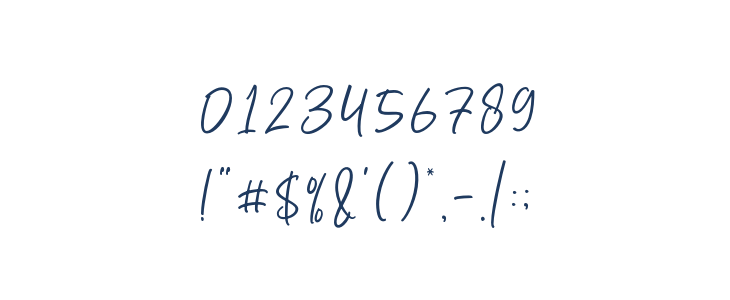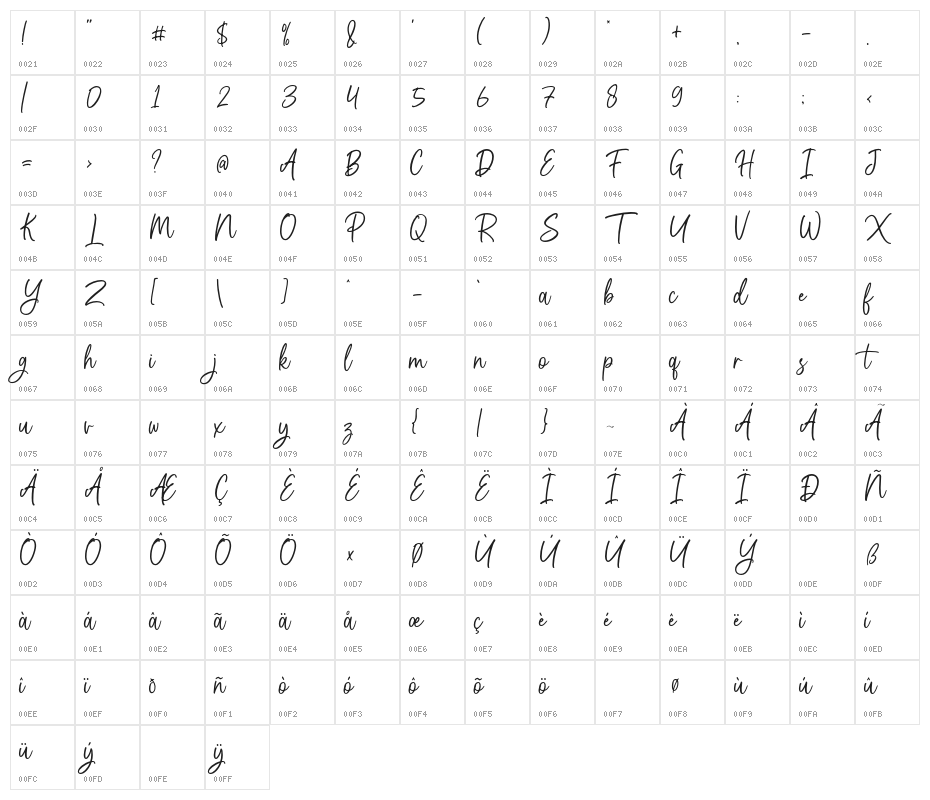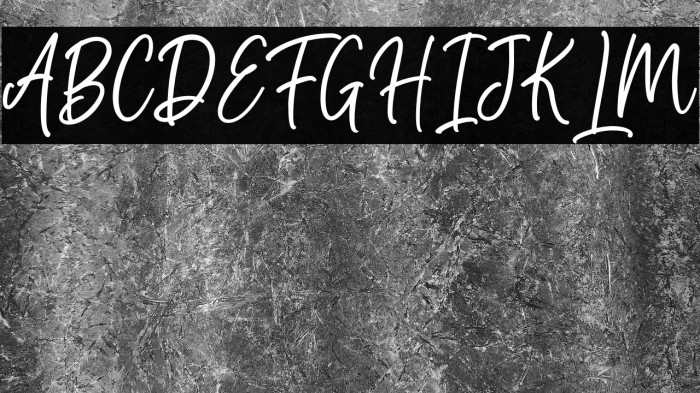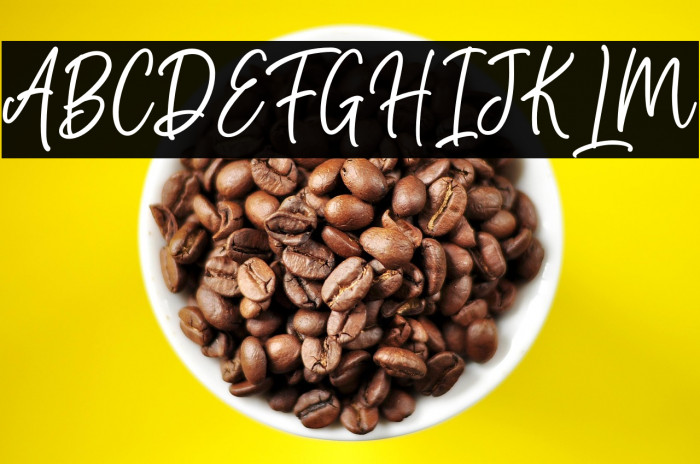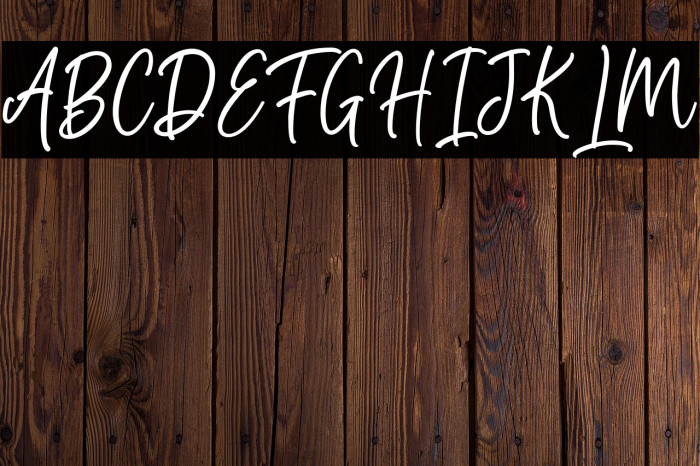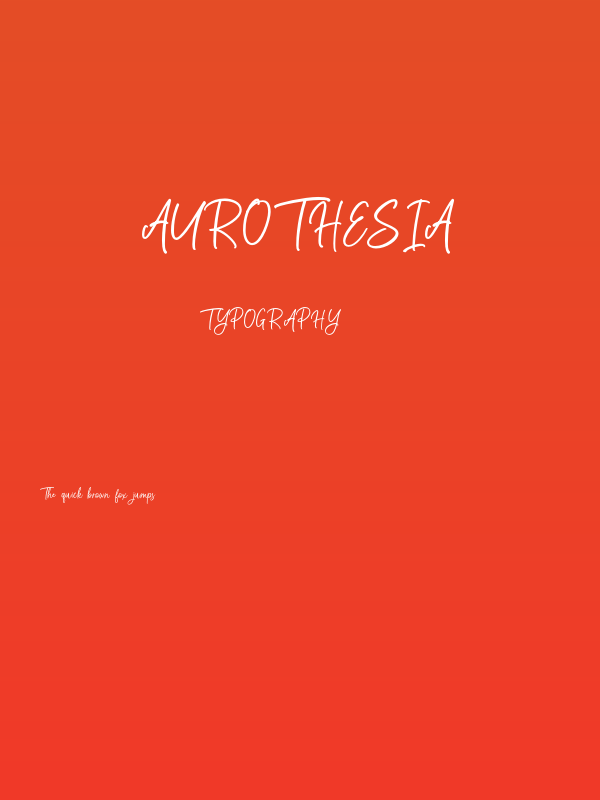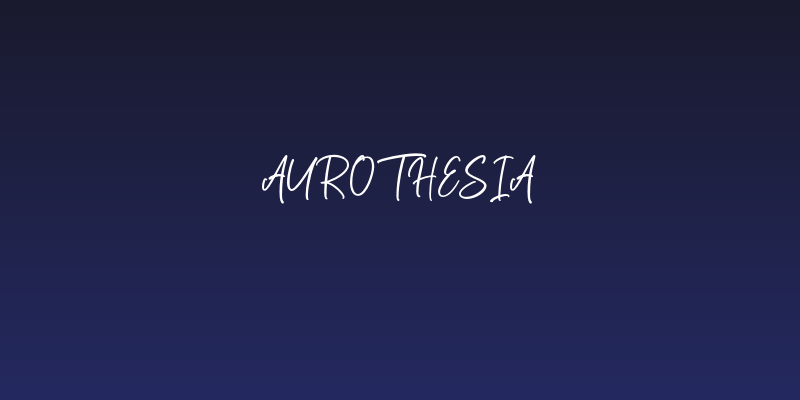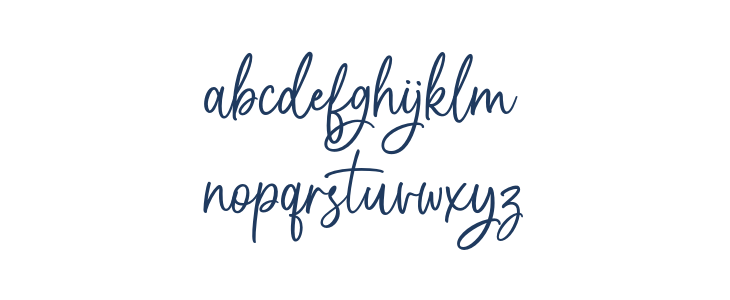
Aurothesia Font
Aurothesia Description
This font features a lively and flowing script style, characterized by its elegant and cursive letterforms. The uppercase letters are tall and slightly slanted, giving a sense of movement and grace. The lowercase letters are connected, enhancing the script's fluidity and continuity. The numerals and special characters maintain the same cursive style, ensuring consistency throughout. The overall appearance is both sophisticated and approachable, making it suitable for a variety of design contexts where a personal touch is desired.
| Overall Style | Elegant, Decorative |
| Proposed Projects | Ideal for wedding invitations, greeting cards, branding, and logo design where a personal and elegant touch is needed. |